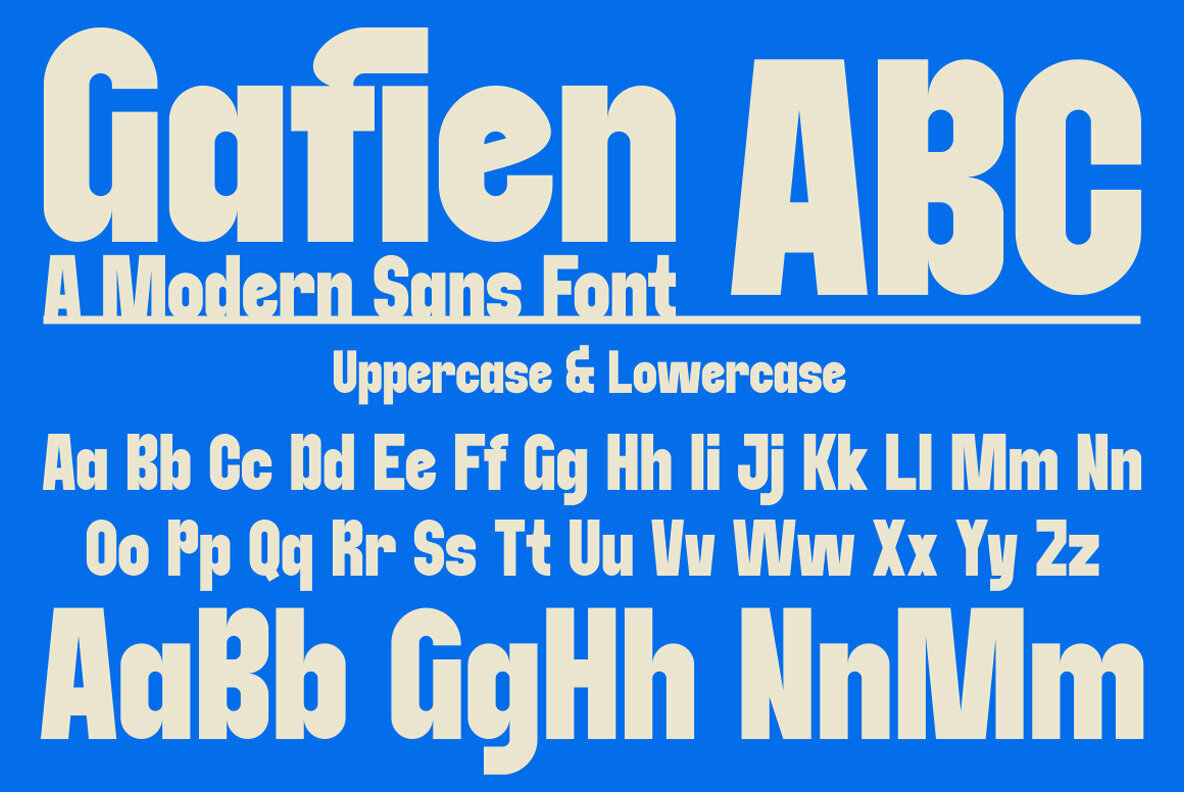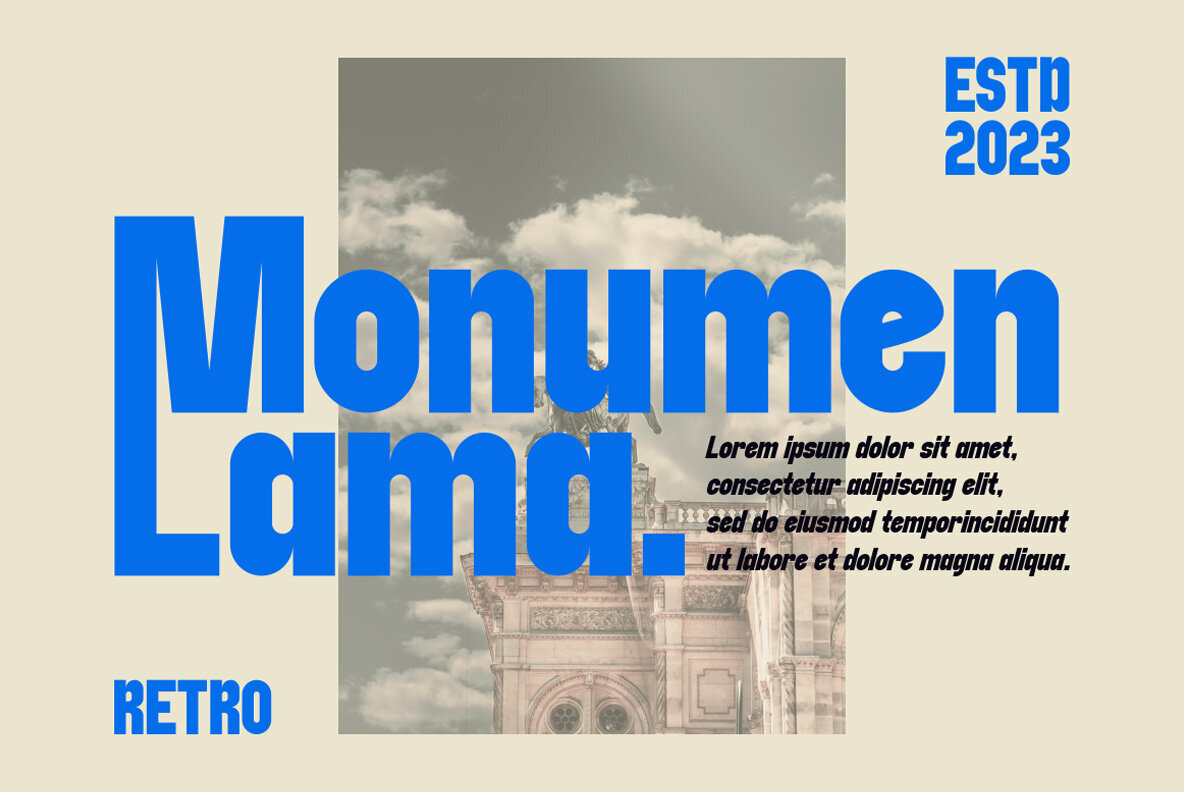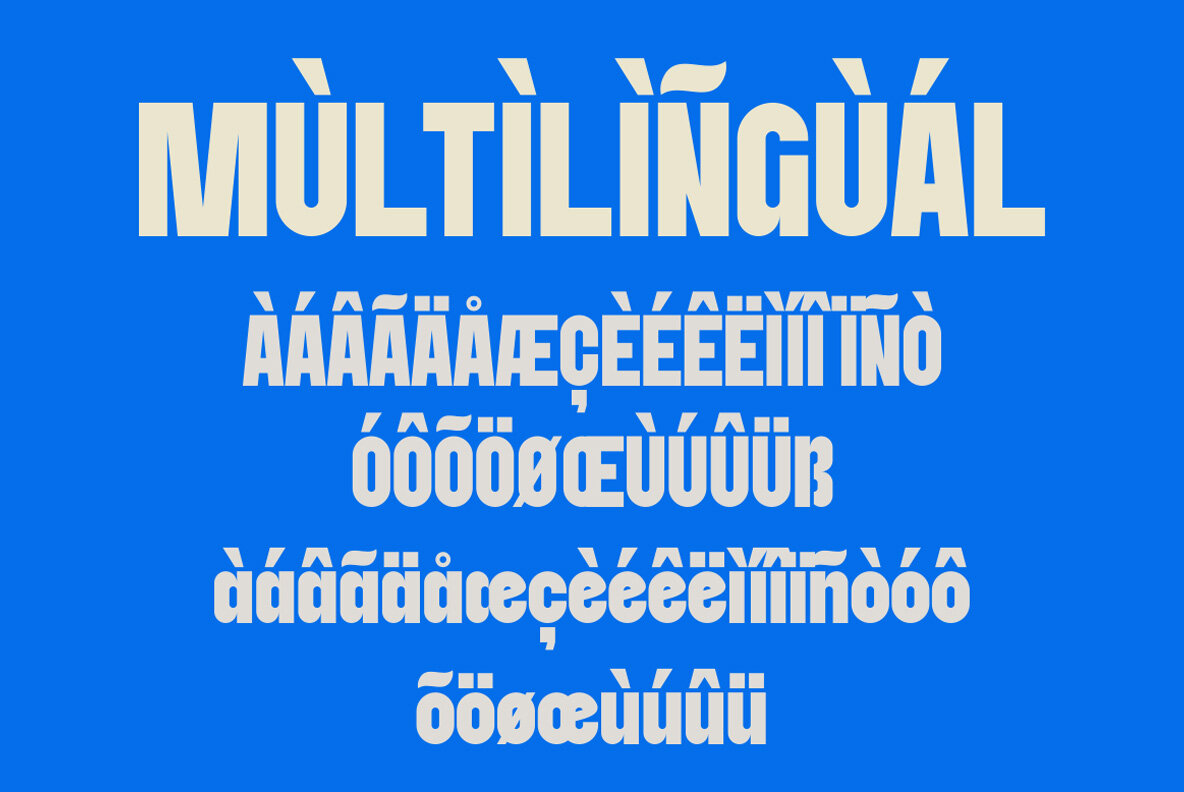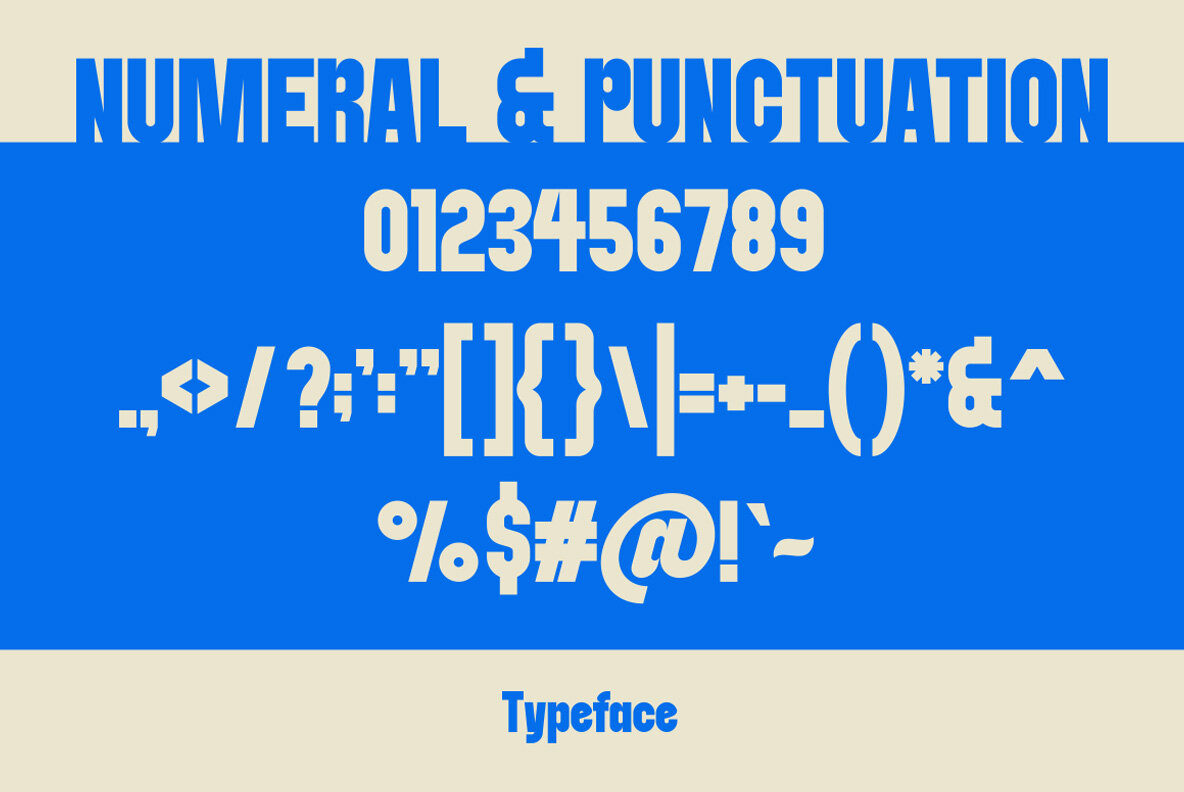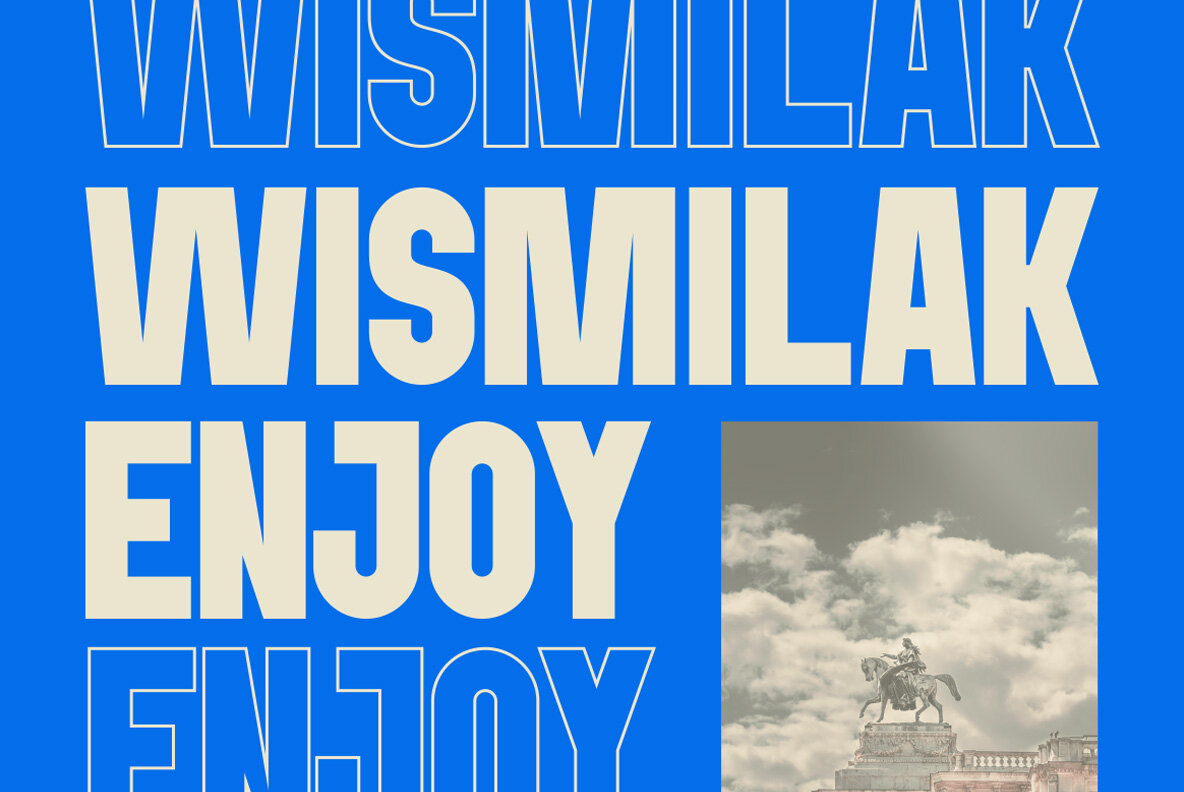
Gafien Font: Bold and Versatile Display Typeface
Gafien Font offers a modern and bold look that is perfect for branding projects. Its authentic and eye-catching design makes it ideal for use in logos, templates, and various products. With its versatile nature, Gafien Font is suited for a wide range of creative applications, providing a contemporary flair to your design projects.